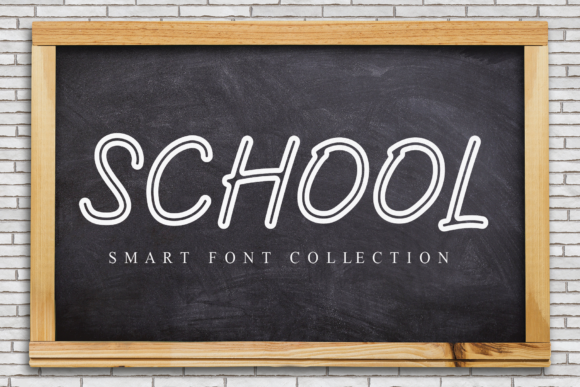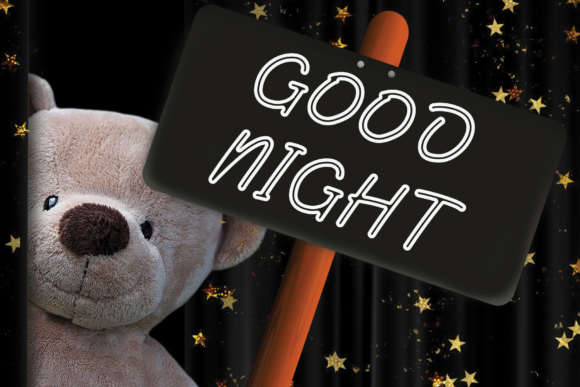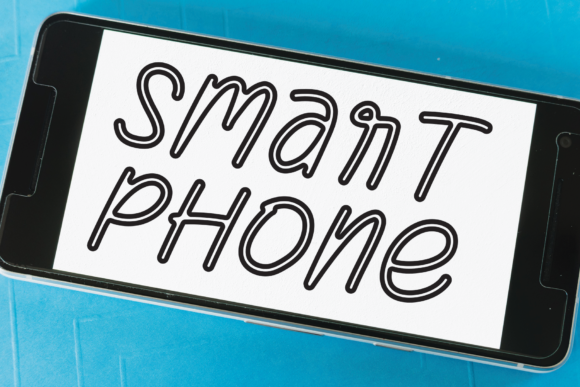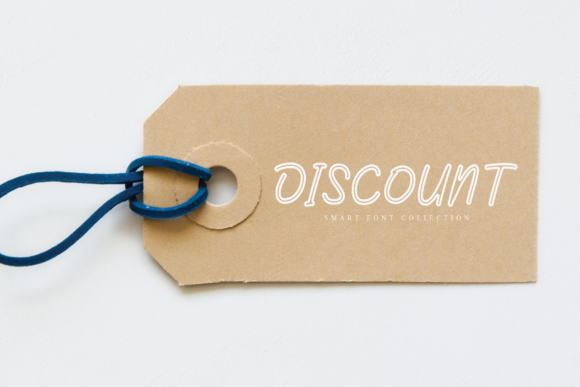
Introducing Handmade Valentine Font: Add a Joyful Touch to Your Designs
Are you looking for a font that can add a playful and quirky touch to your designs? Look no further than the Handmade Valentine Font! This adorable display font is perfect for designers and crafters who want to create unique and eye-catching projects. In this article, we’ll take a closer look at the Handmade Valentine Font and explore how it can elevate your designs.
What is Handmade Valentine Font?
Handmade Valentine is a cute and quirky display font that is sure to bring a smile to your face. Its playful and joyful design makes it perfect for a variety of creative projects, from Valentine’s Day cards and decorations to branding and advertising materials. This font is designed to add a touch of whimsy and fun to your designs, making them stand out from the crowd.
Key Features of Handmade Valentine Font
So, what makes the Handmade Valentine Font so special? Here are just a few of its key features:
- Cute and Quirky Design: The Handmade Valentine Font has a playful and charming design that is sure to capture the hearts of your audience.
- Display Font: This font is perfect for headlines, titles, and other display text, where you want to make a bold statement.
- Easy to Read: Despite its playful design, the Handmade Valentine Font is easy to read, making it perfect for use in a variety of creative projects.
- Versatile: This font can be used in a wide range of creative projects, from digital designs to print materials.
How to Use Handmade Valentine Font in Your Designs
Now that we’ve explored the features of the Handmade Valentine Font, let’s take a look at how you can use it in your designs. Here are a few ideas to get you started:
- Valentine’s Day Cards and Decorations: This font is perfect for creating Valentine’s Day cards, decorations, and other materials that require a playful and romantic touch.
- Branding and Advertising: Use the Handmade Valentine Font to add a touch of whimsy and fun to your branding and advertising materials, such as logos, brochures, and social media graphics.
- Digital Designs: This font is perfect for use in digital designs, such as website headers, email newsletters, and social media graphics.
- Print Materials: Use the Handmade Valentine Font in print materials, such as flyers, posters, and business cards, to add a touch of personality and flair.
Tips for Getting the Most Out of Handmade Valentine Font
To get the most out of the Handmade Valentine Font, here are a few tips to keep in mind:
- Use it Sparingly: While the Handmade Valentine Font is playful and fun, it can be overwhelming if used too much. Use it sparingly to add a touch of whimsy to your designs.
- Pair it with Other Fonts: Experiment with pairing the Handmade Valentine Font with other fonts to create a unique and eye-catching design.
In conclusion, the Handmade Valentine Font is a cute and quirky display font that is sure to add a joyful touch to your designs. With its playful and charming design, this font is perfect for a variety of creative projects, from Valentine’s Day cards and decorations to branding and advertising materials. By following the tips outlined in this article, you can get the most out of the Handmade Valentine Font and create unique and eye-catching designs that will capture the hearts of your audience.